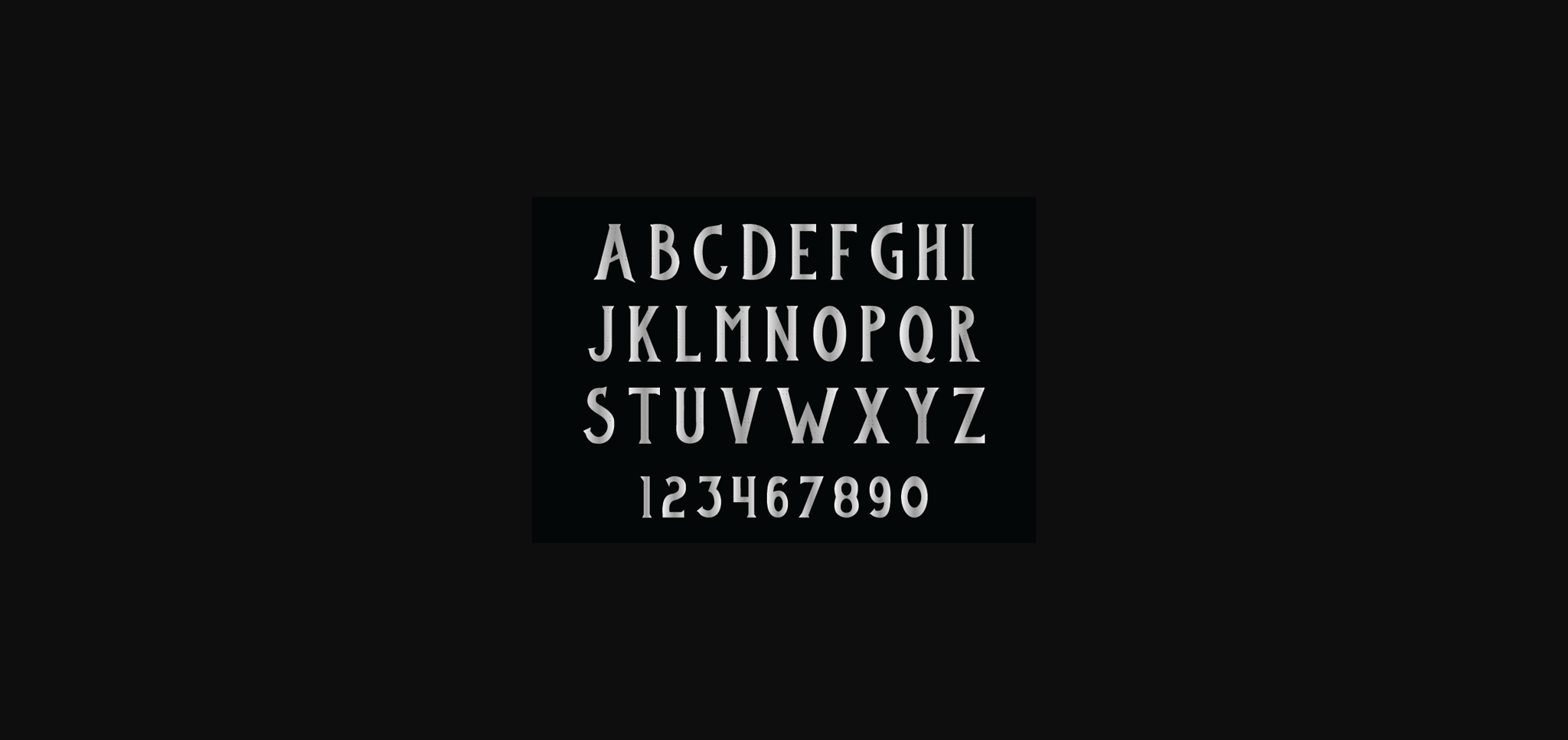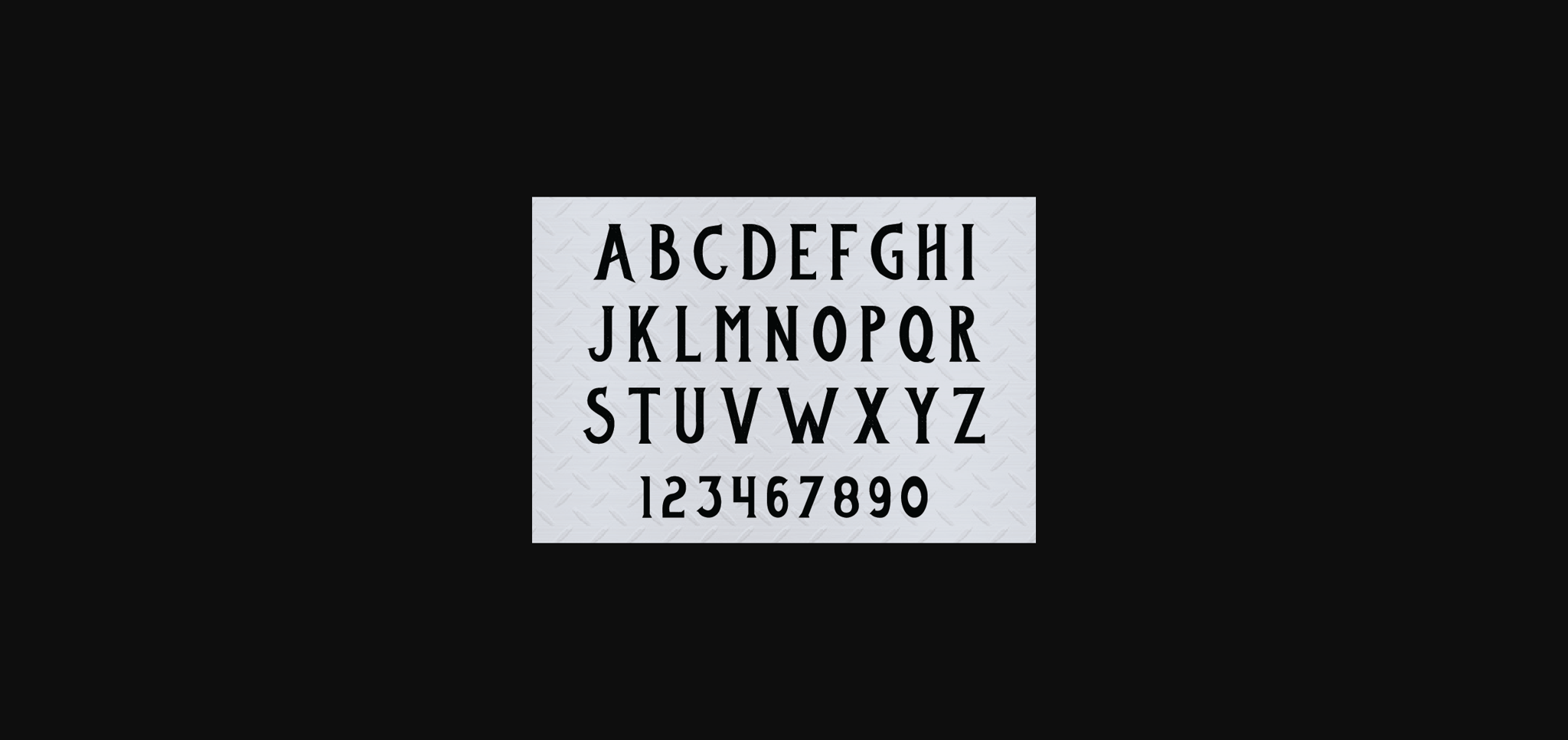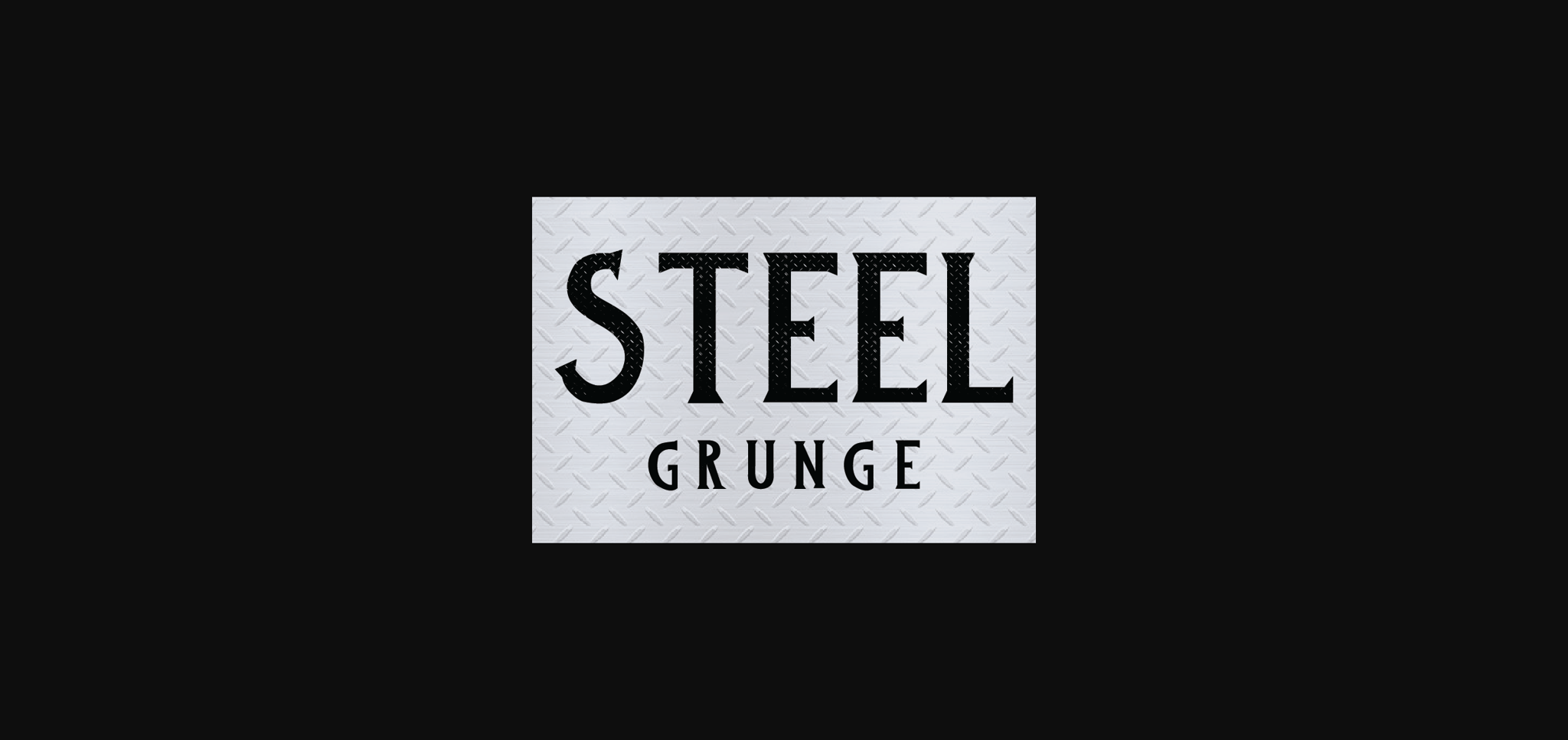
Steel Grunge Font
About Steel Grunge Font
Steel Grunge is a unique sans-serif font that is a real statement-maker, with its edgy and raw design. Steel Grunge rough lines and distressed texture create a sense of grit and rebellion, making it perfect for anything that demands a touch of boldness and individuality, from posters and album covers to streetwear branding.